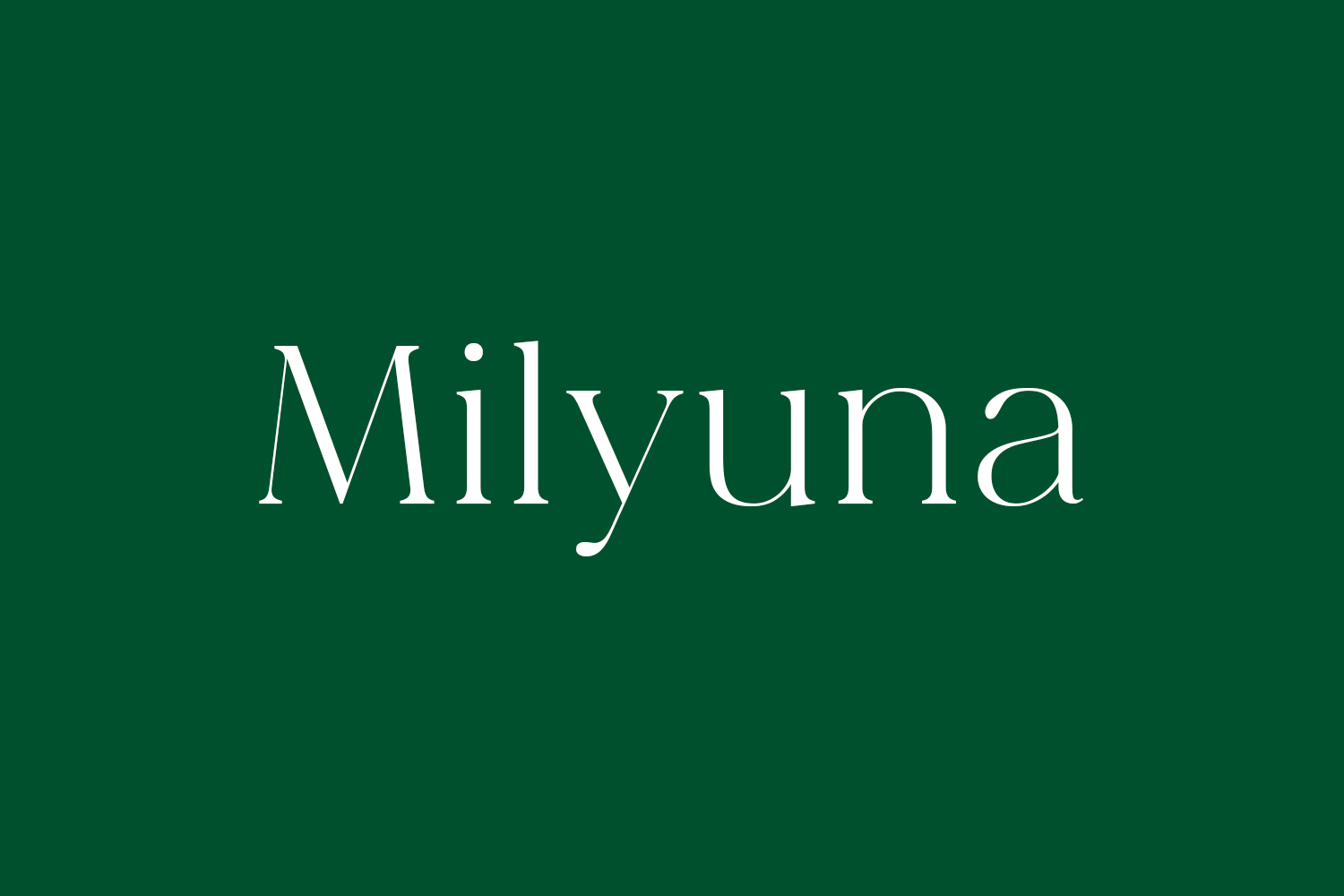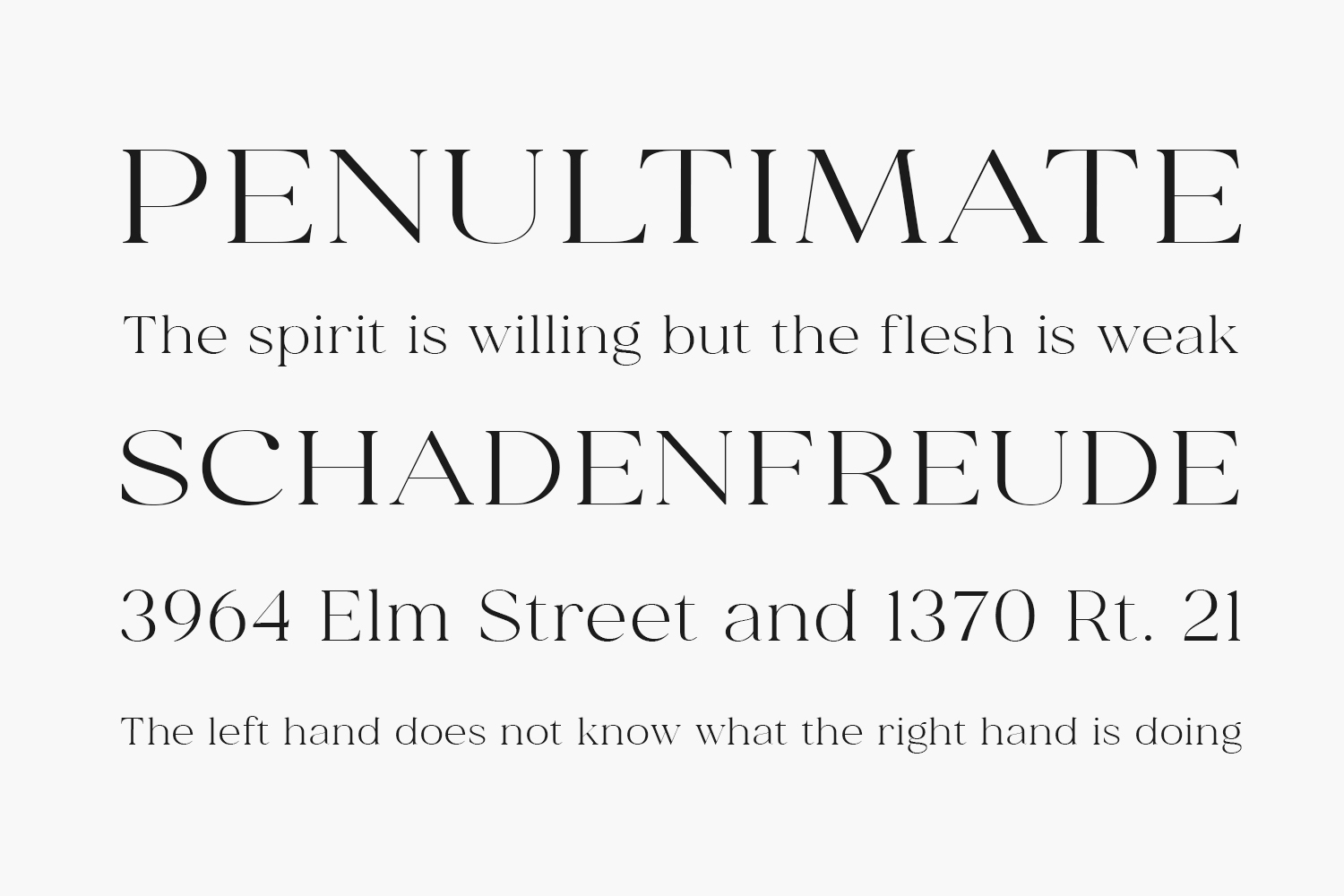
Milyuna Free Font is a thin lettered and elegant serif font. Simple but with a strong visual effect, this font will instantly make your creation more appealing than any others.
Designed by Suby Studio